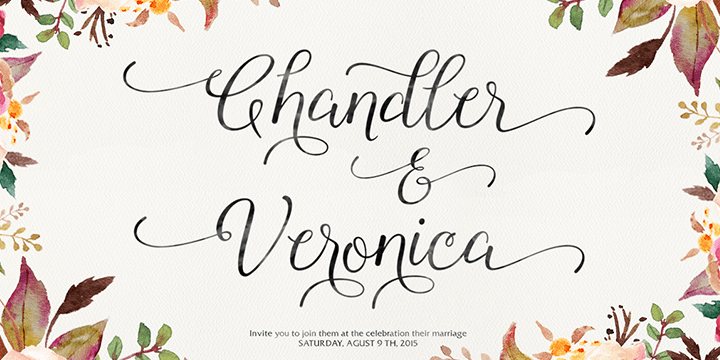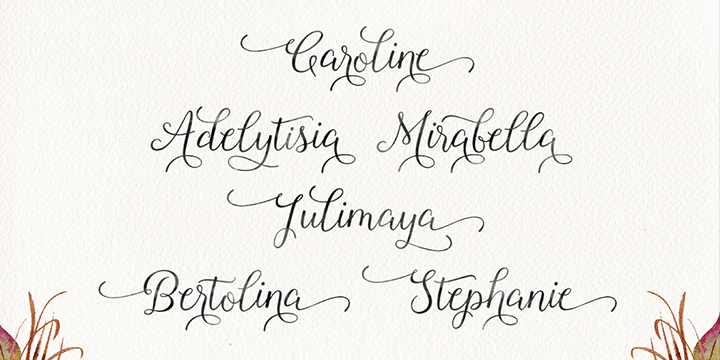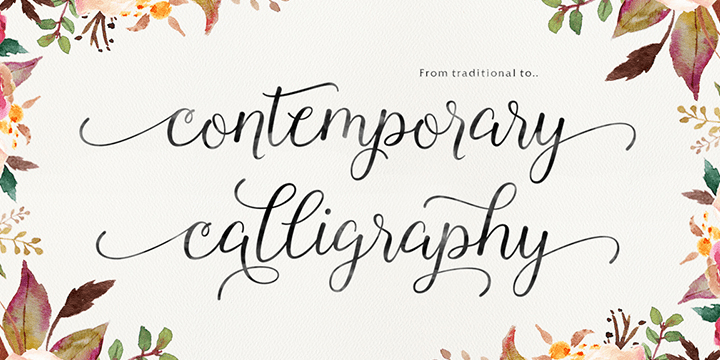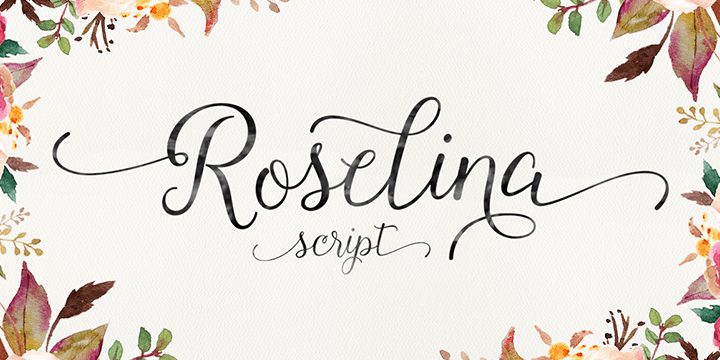
About Roselina Script
Roselina Script is a contemporary calligraphy, with a vintage feel, style calligraphy with moving baseline and elegant touch. Can be used for various purposes such as headings, signature, logos, wedding invitation, t-shirt, letterhead, signage, labels,…